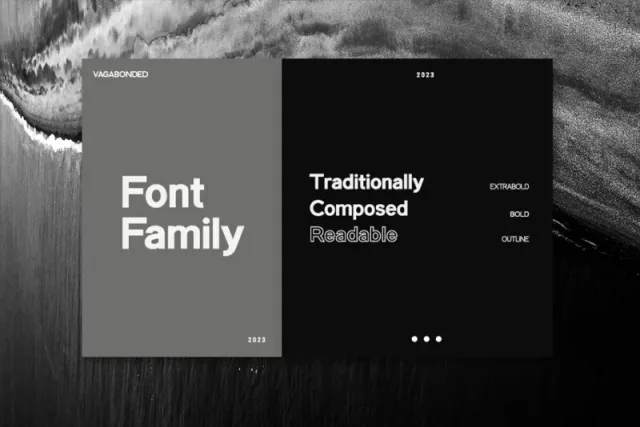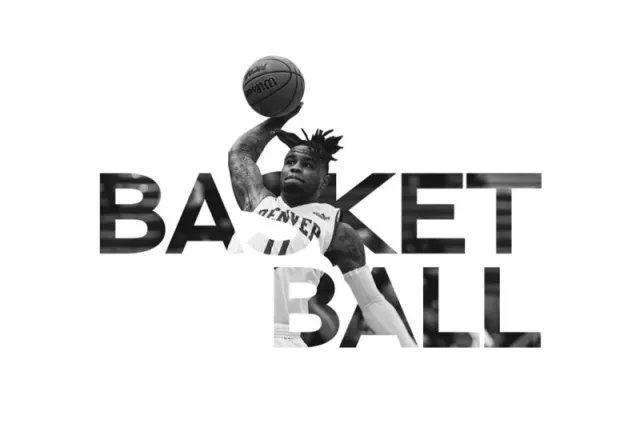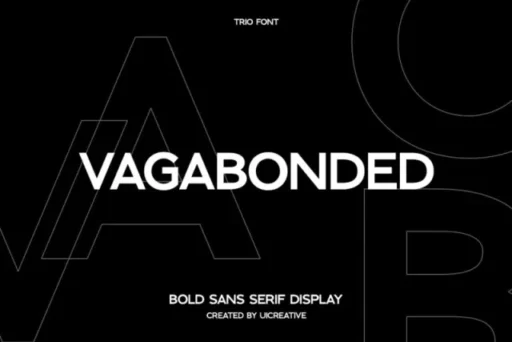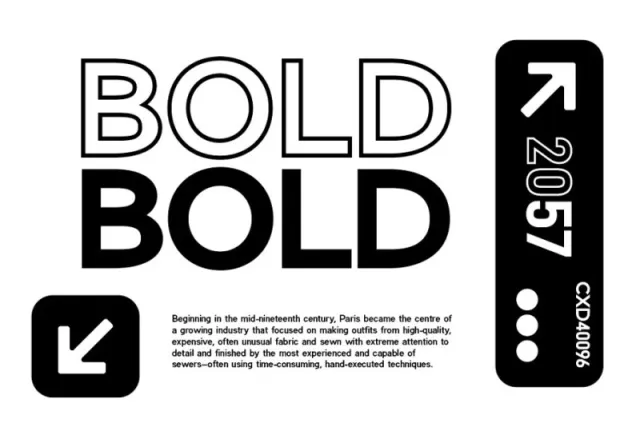
Vagabonded Font
Vagabonded is a modern sans serif font with bold shapes that pop on any background. Its clear letterforms make it ideal for logos, stationery, wedding invites, and typog…
Vagabonded is a modern sans serif font with bold shapes that pop on any background. Its clear letterforms make it ideal for logos, stationery, wedding invites, and typography quotes. You can also use it on magazine or book covers, website headers, and packaging. With its mix of strong lines and soft curves, Vagabonded suits both masculine and feminine styles.
Where Vagabonded Font works best
Vagabonded Font stays legible at small sizes, which makes it a strong choice for navigation, buttons and dashboards in web design and app interfaces.
Clean sans serifs like Vagabonded Font are the default language of SaaS, fintech and product branding.
What is Vagabonded Font good for?
Vagabonded Font is a Sans Serif Fonts typeface tagged Bold, Branding, Editorial, Modern. It works well for headlines, logos, posters, social media graphics and branding projects that need a distinctive sans serif fonts look.